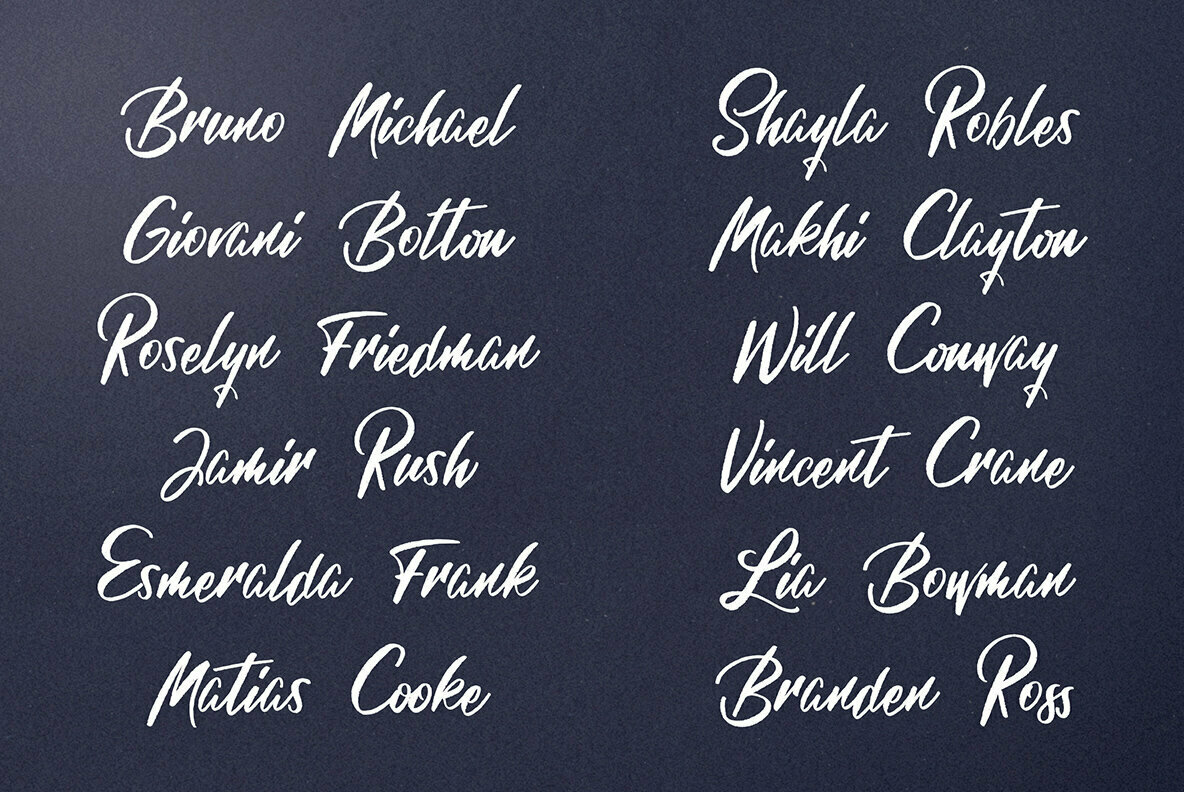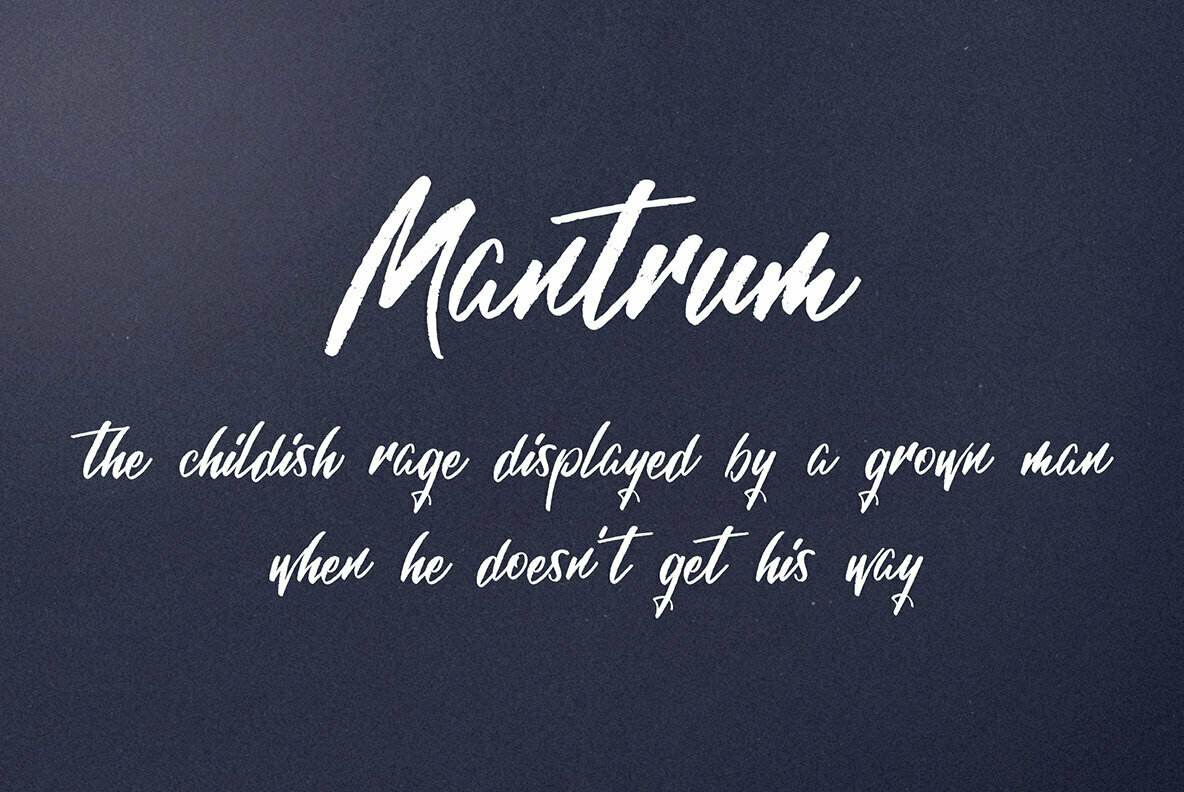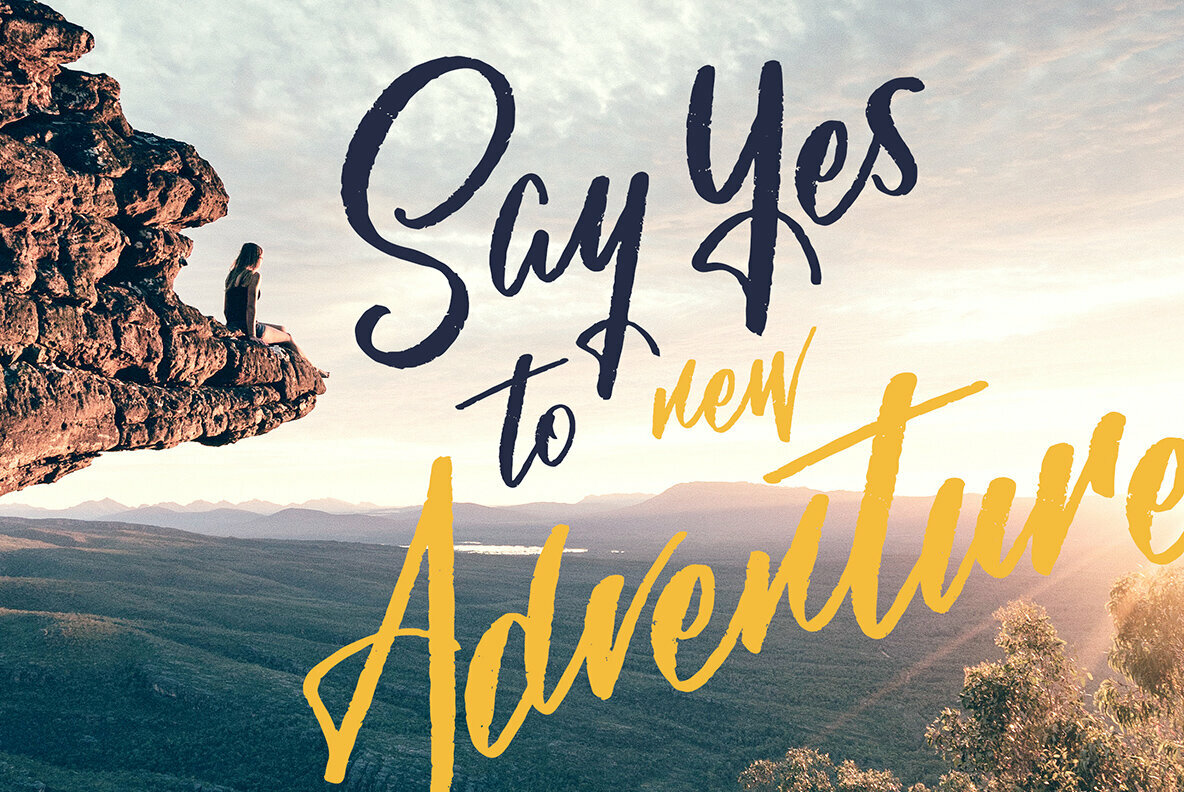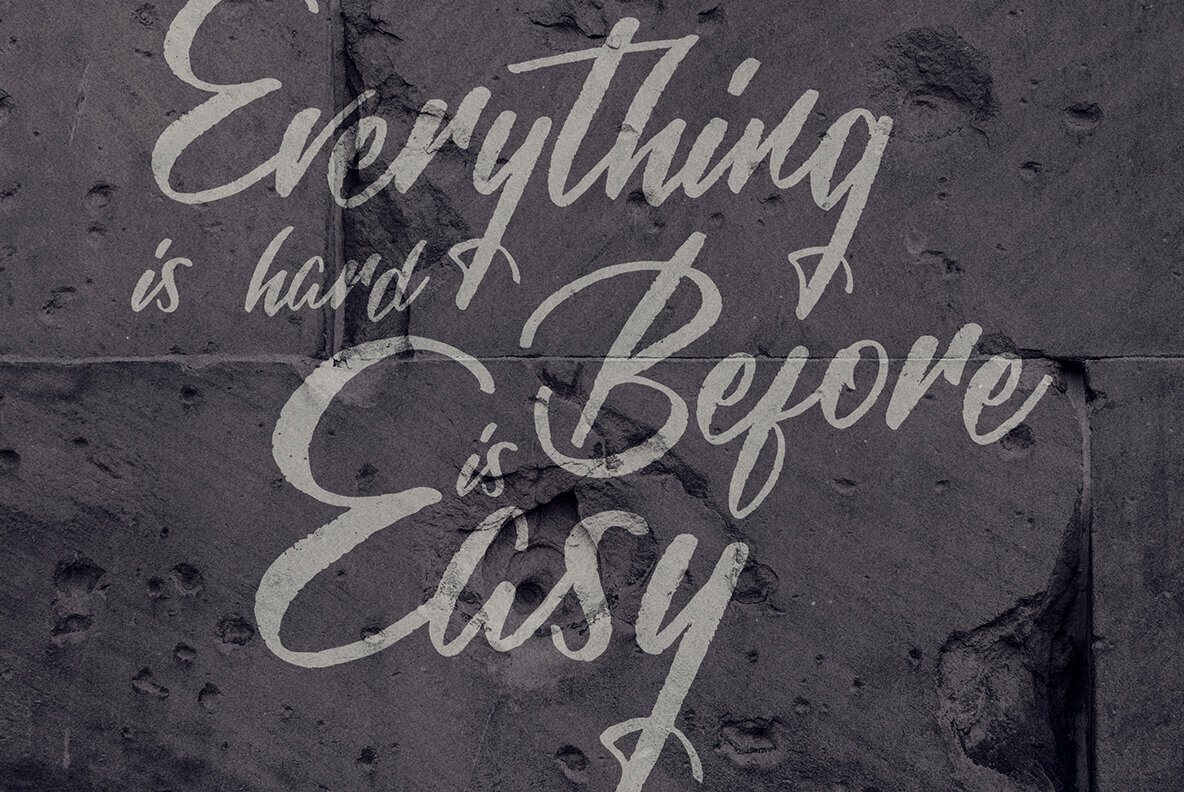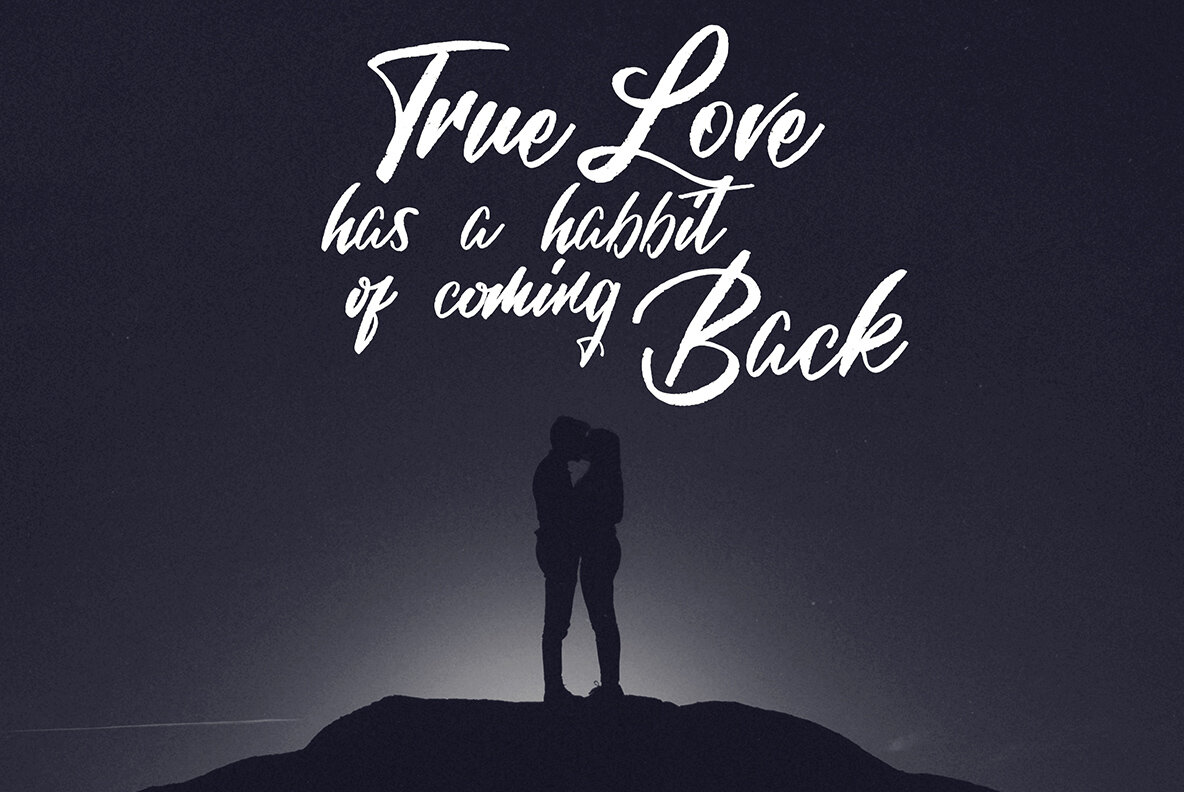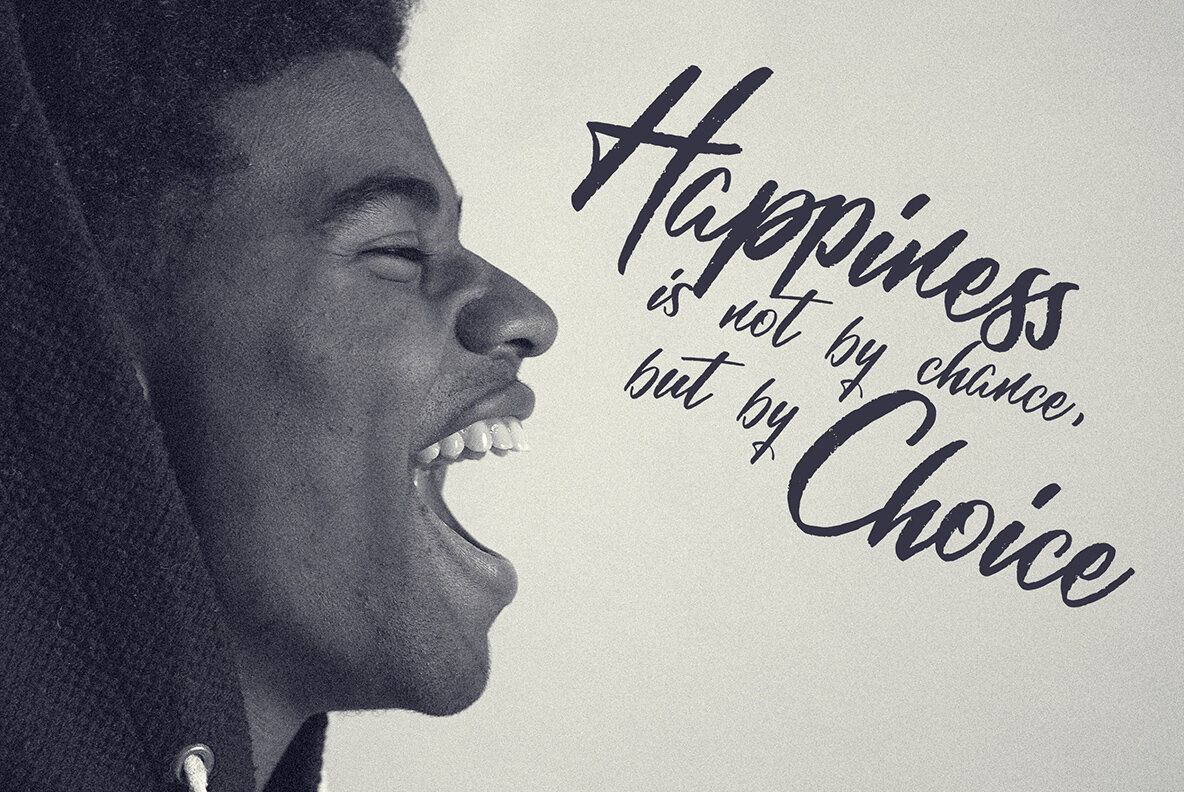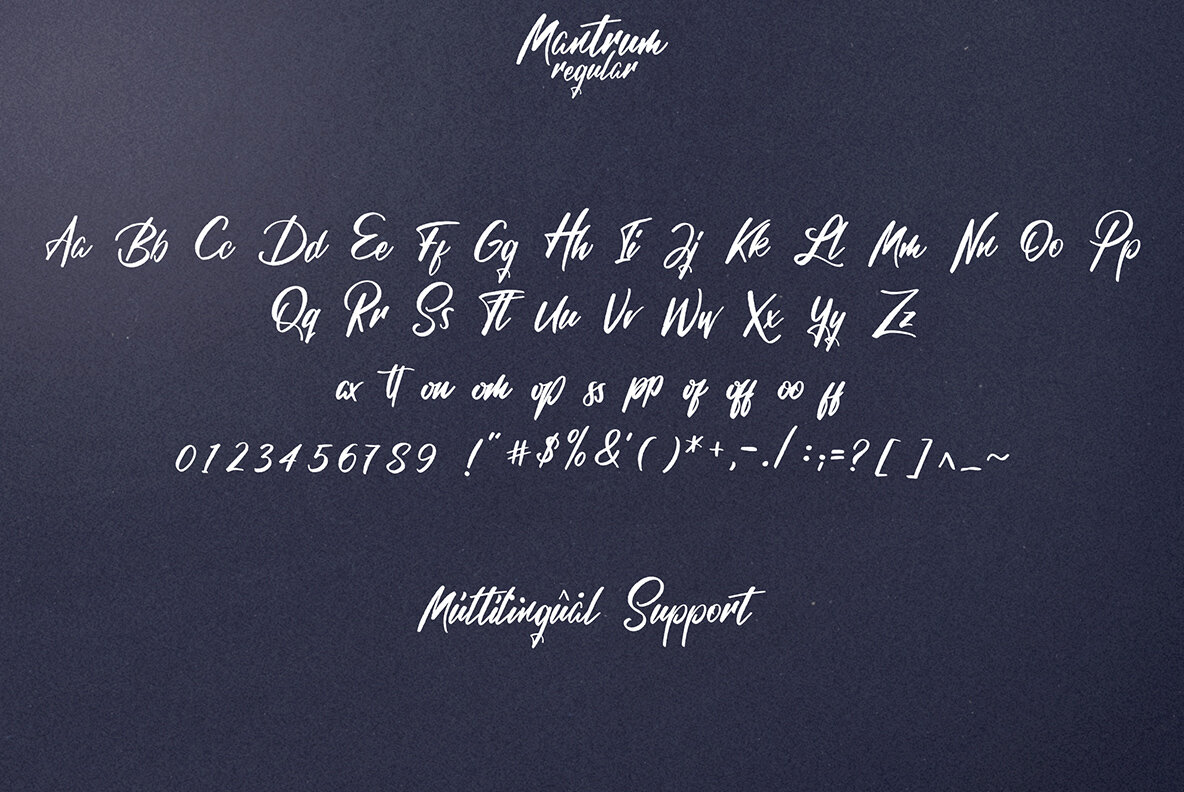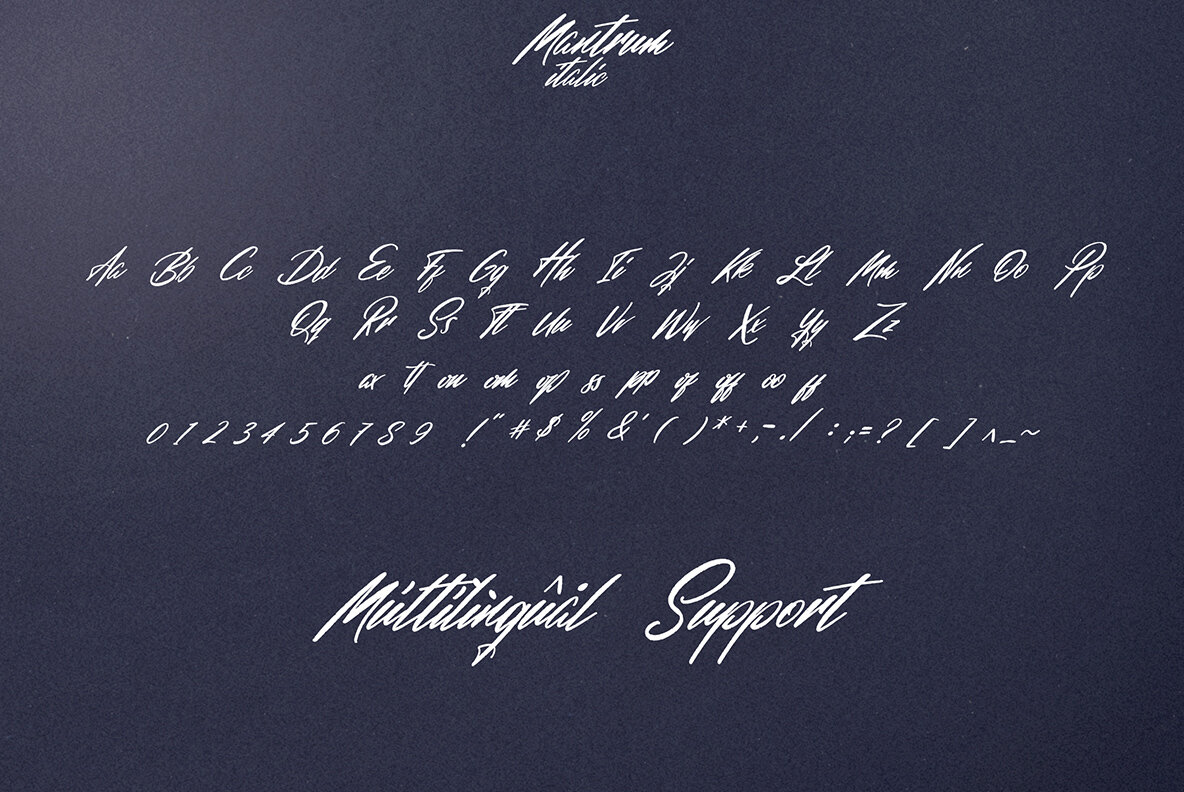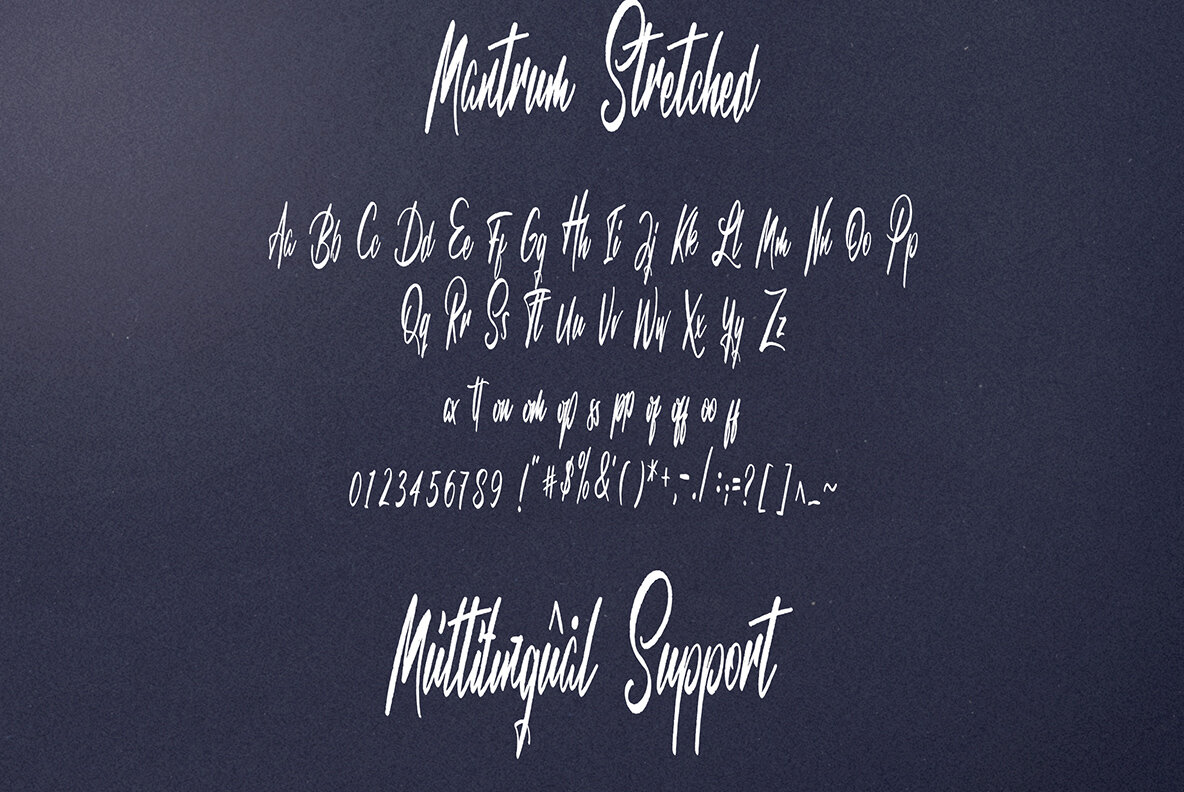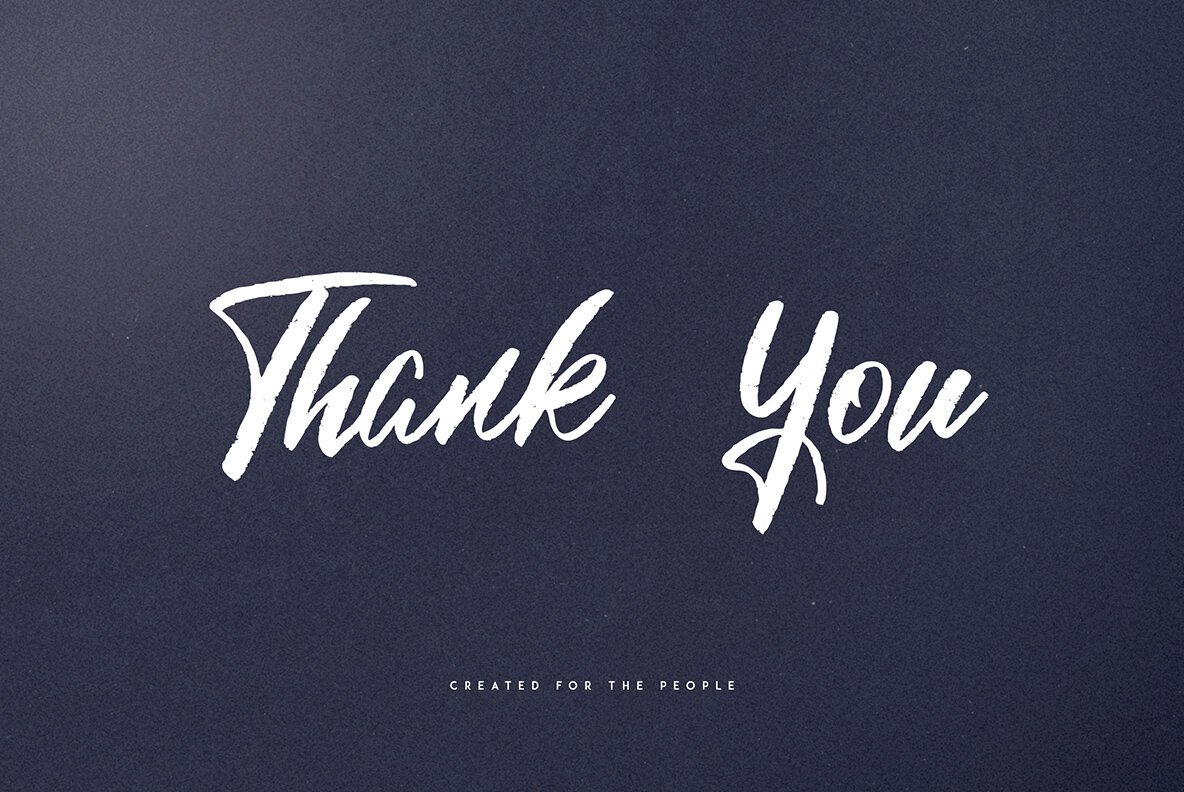
Mantrum is grunge, urban script with 3 styles and multilingual support. It's a very versatile font that works great in large and small sizes. Mantrum is perfect for branding projects, home-ware designs, product packaging, magazine headers - or simply as a stylish text overlay to any background image.